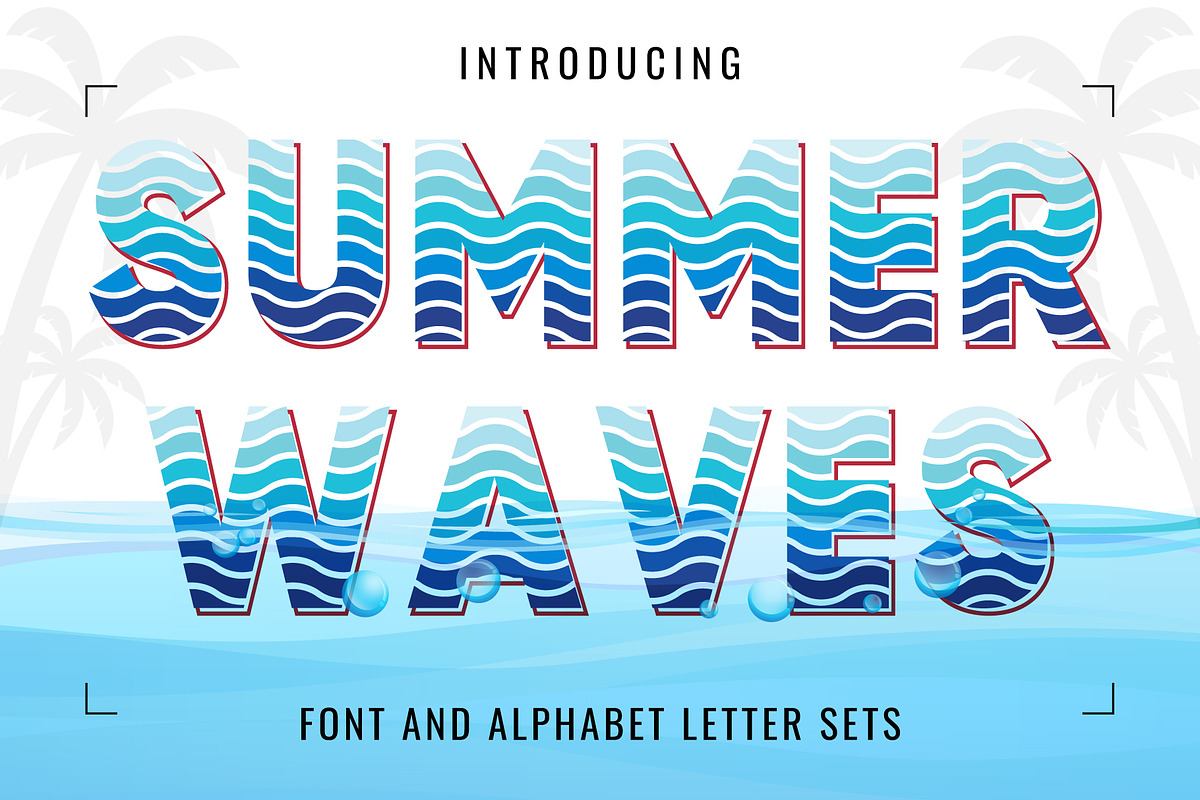
Summer Waves Font Free Download is a breezy and fun display typeface that captures the carefree spirit of sunshine, surf, and sand. With its flowing lines and playful curves, this font is perfect for beach party invites, summer apparel, travel blogs, tropical branding, and vacation-themed social media content.
Its relaxed and wavy style brings movement and warmth to any design, making it ideal for projects that want to feel sunny, fresh, and full of life. Whether you’re crafting a coastal logo or a seasonal promotion, Summer Waves sets the perfect tone. Summer Waves Font Free Download lets you try this vibrant font in personal projects before purchasing a commercial license.
Ride the tide of creativity with Summer Waves — the font that feels like a splash of sunshine.